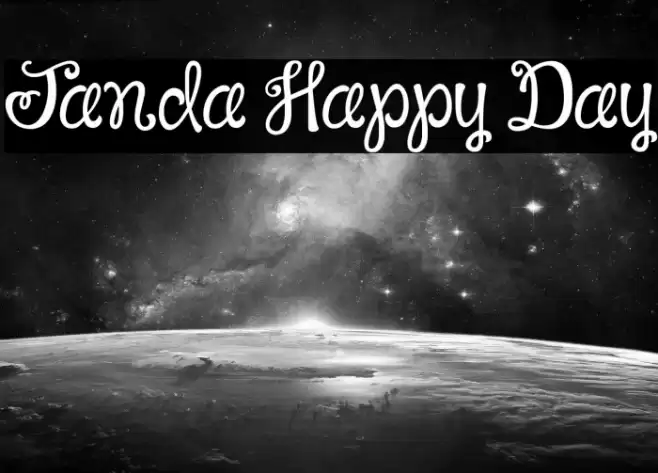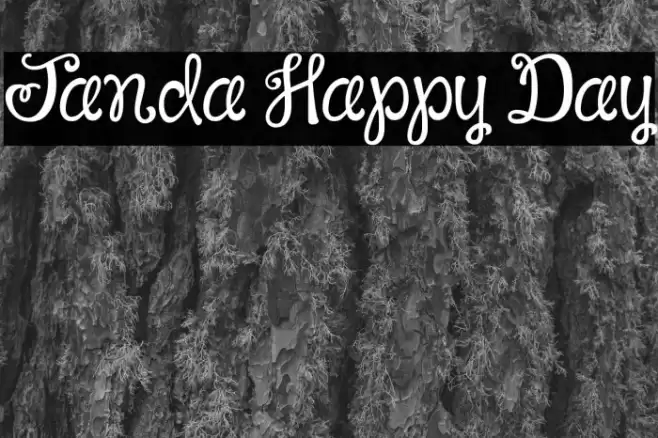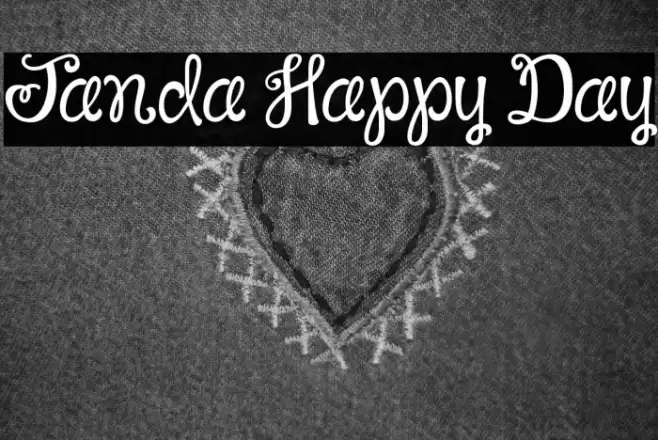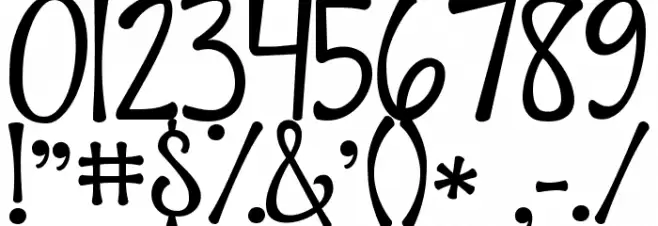
Janda Happy Day Font
Janda Happy Day Description
This playful and whimsical font features a handwritten style with a touch of elegance. The characters are crafted with smooth, flowing curves and a slight bounce, giving it a lively and cheerful appearance. The uppercase letters are bold and rounded, while the lowercase letters maintain a consistent flow with charming loops and swirls. The numbers are equally playful, with a slightly exaggerated height that complements the overall style. Special characters are creatively designed, adding to the font's unique personality. This font is perfect for projects that require a fun and friendly touch.
A playful, whimsical handwritten font with smooth curves and charming loops from Curly fonts.